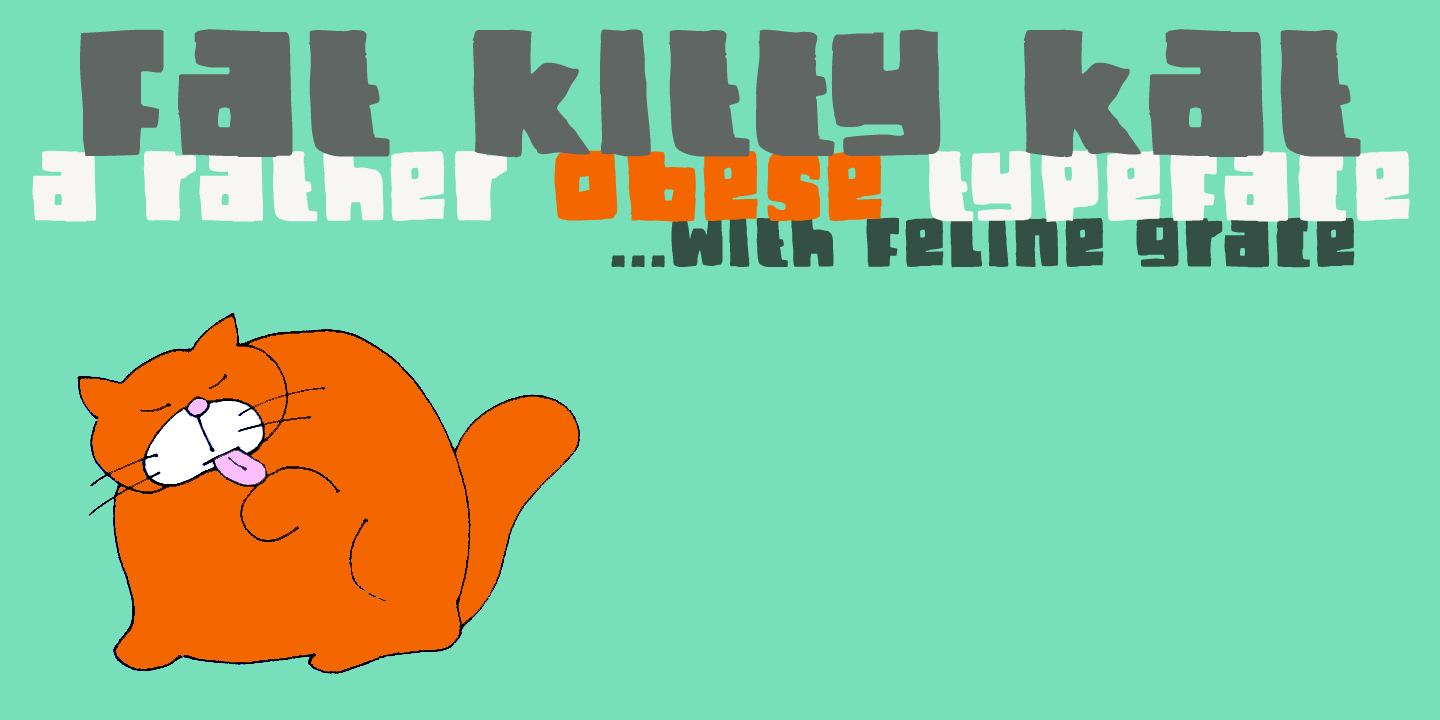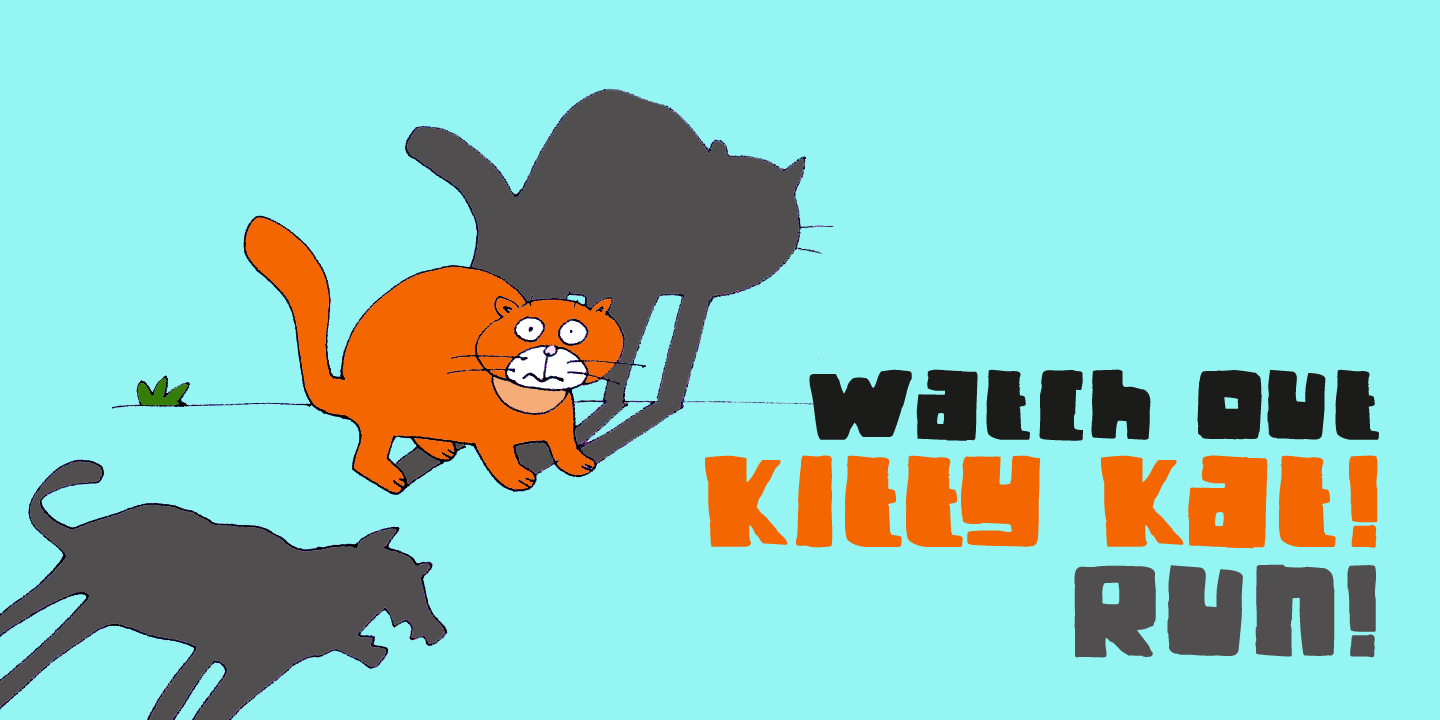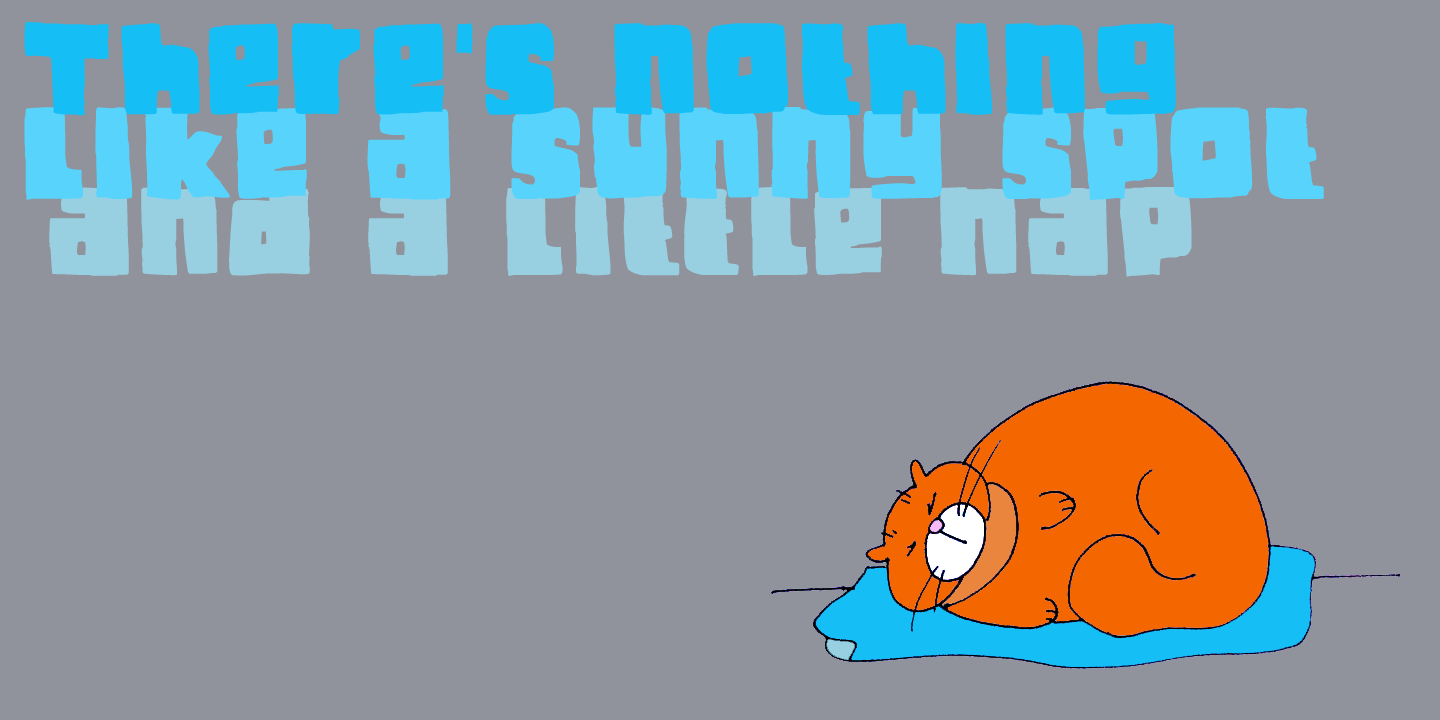
Fat Kitty Kat
Font Family by Hanoded
Buy NowFat Kitty Kat is a hand made, rather bouncy and happy font. It was thought up, drawn and vectorized during an unusually long rainy period in a small Porto hotel room. Kitty Kat's glyphs are rather rough, but legible and fun to use. The font comes with extensive language support and a full range of alternates for the lower case letters.